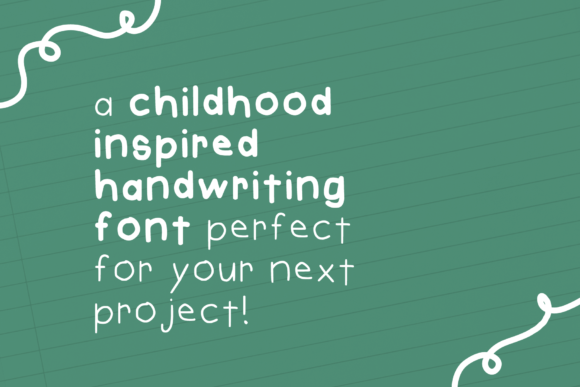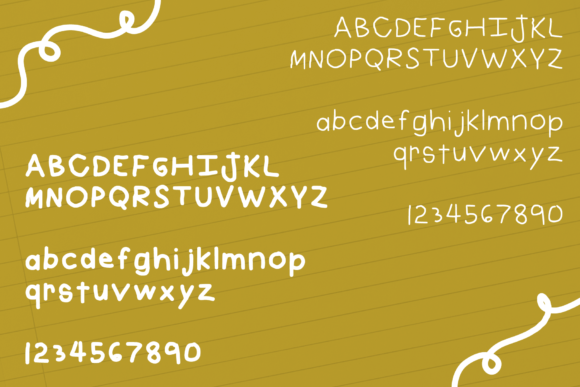
Getting Ready for a Fresh Start
As the summer sun sets, and the new school year approaches, I find myself rummaging through old notebooks and dusty folders, reminiscing about the joys of learning. The excitement of meeting new friends, discovering new subjects, and unleashing creativity on blank pages is a feeling that never gets old.
For designers, creating engaging and educational content for kids is a challenge that requires a special touch. That’s where the Back to School Font comes in – a delightful handwritten font inspired by the playful and whimsical handwriting of young students. Perfect for adding a fun, youthful touch to any project, this font is ideal for educational materials, kids’ invitations, classroom decor, and children’s books.
With the Back to School Font, designers can tap into the magic of the school year and create content that resonates with kids and parents alike. Whether you’re a teacher, a designer, or a parent, this font is sure to bring a smile to your face and inspire creativity in your next project.
Key Features of Back to School Font
- Font Family: A custom-designed font family with a playful, educational theme.
- Character Count: The font family includes over 500 characters, including uppercase and lowercase letters, numbers, and special symbols.
- Unique Characteristics: Features a distinctive, hand-drawn style with bold lines and playful flourishes, perfect for creating eye-catching educational materials.
Back to School Font Review
Overall, I have mixed feelings about the “Back to School Font”. There are some things that it does well, but also some areas where it falls short.
- Fun and playful vibe: The font has a great energy to it, perfect for a back-to-school theme.
- Easy to read: Despite its playful nature, the font is still legible and easy to read, even at smaller sizes.
- Good for headings: The font’s bold and cursive elements make it well-suited for headings and titles.
- Limited font sizes: The font can look a bit cluttered at larger sizes, and may not be ideal for body text.
- Not ideal for body text: As mentioned earlier, the font can be difficult to read at larger sizes, making it not ideal for body text.
- Limited language support: The font may not be compatible with certain languages or character sets.
While the “Back to School Font” has some great qualities, its limitations make it a bit of a niche font. It’s perfect for a specific project or theme, but may not be the best choice for more general use. If you’re looking for a fun and playful font, this one might be worth considering. Just be sure to use it in the right context.
Getting the Most Out of the Back to School Font
Use the Back to School Font for summer and back-to-school-themed designs, such as invitations, posters, and social media graphics.
Combine the font with other summer-themed elements, like ice cream cones, sunglasses, and beach balls.
Alternatives to Back to School Font
Great Vibes Font is a modern, elegant script font perfect for creating a friendly and approachable atmosphere. It’s ideal for use in social media graphics, advertising, and branding materials. When to use: Informal invitations, event promotions, and casual announcements. Compared to Back to School Font, Great Vibes Font has a more refined and sophisticated feel, making it suitable for a wider range of applications.
Cursive Script Font
Cursive Script Font is a classic, handwritten font that exudes a sense of nostalgia and warmth. It’s suitable for use in educational materials, invitations, and wedding stationery. When to use: Formal events, educational projects, and personal stationery. Compared to Back to School Font, Cursive Script Font has a more traditional and elegant feel, making it suitable for formal occasions.